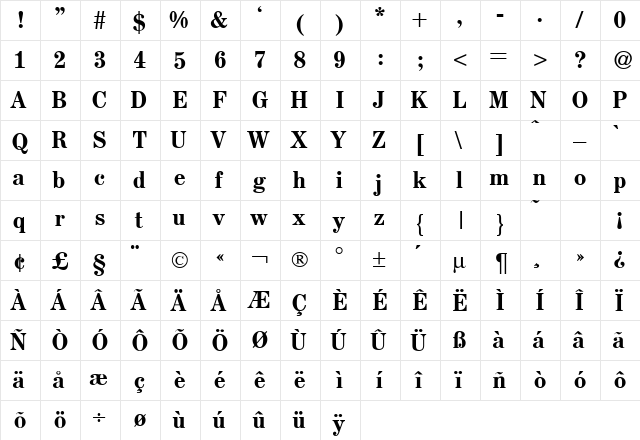
AugustMediumDB Normal Font Preview
AugustMediumDB Normal
AugustMediumDB Normal Font Details
Design Context for AugustMediumDB Typeface
AugustMediumDB takes a measured approach to typography — its balanced proportions and neutral character make it a reliable workhorse for both digital and print work.